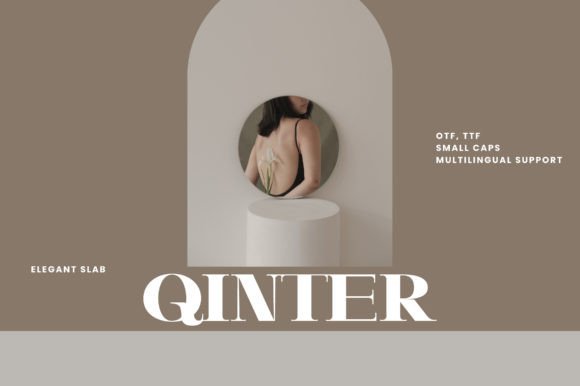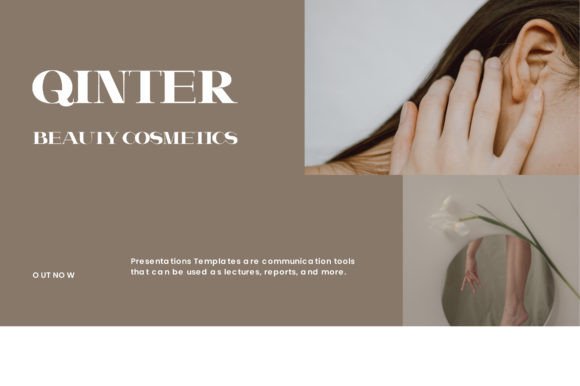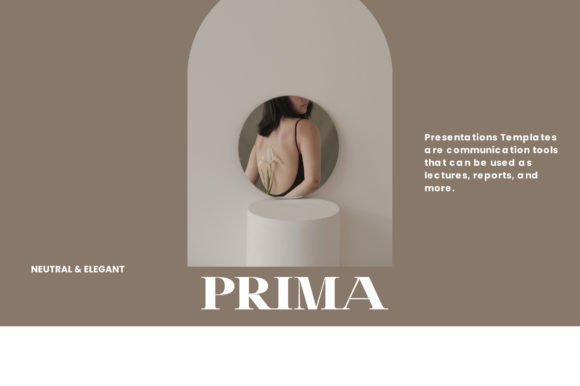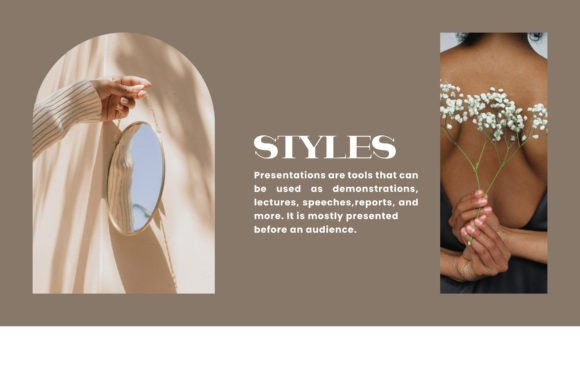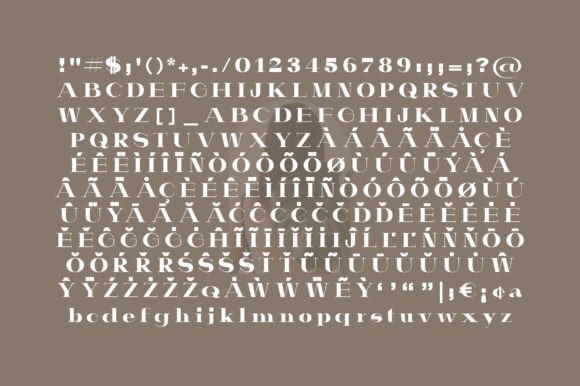
Qinter Font
QINTER FONT SPECIMEN
Qinter is a wonderful and elegant slab serif font. No matter what design theme you are working on, this font will be a great addition to your font library. Add it to your creations, and you will notice how it elevates them to the highest level!